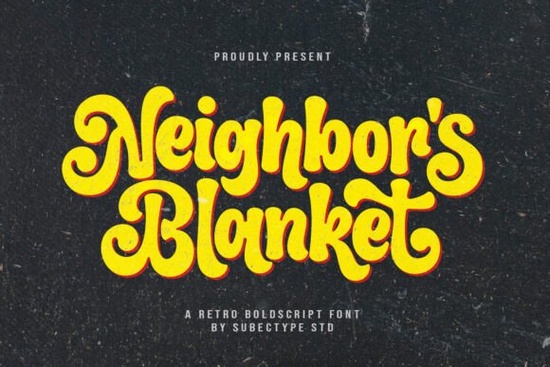
If you’ve been looking for a font that feels like a warm hug in type form, Neighbor’s Blanket Font might be exactly what your next project needs. It’s got that soft, rounded charm the kind that makes people lean in and smile when they see it on a greeting card, product label, or social media graphic. Whether you’re designing for print-on-demand mugs, crafting cozy branding for your small business, or just making something personal for friends and family, this font brings comfort without sacrificing clarity.
What stands out right away is how effortlessly Neighbor's Blanket blends retro nostalgia with modern simplicity. The curves are gentle, the spacing generous, and the overall vibe? Friendly. Not cutesy, not childish just genuinely inviting. That’s why it works so well across invitations, packaging, logos, and even apparel designs where readability matters as much as personality.
If you’re someone who values warmth in design maybe you run a handmade soap shop, create custom baby shower invites, or sell embroidered tote bags this font speaks your language. It doesn’t shout. It whispers “come sit down, I made cookies.” And sometimes, that’s exactly the tone your audience wants to hear.
Is it easy to pair with other fonts?
Yes and that’s part of its quiet strength. Because the letterforms are simple and open, they play nicely with sans-serifs for contrast (think pairing with something like Montserrat or Lato) or even handwritten scripts for layered texture. Try putting Neighbor’s Blanket as your headline font and letting a clean body font handle the details. You’ll keep the charm while ensuring everything stays readable.
Any tips for getting the most out of this font?
A few small tweaks can make a big difference:
- Use generous leading. Let those rounded letters breathe tight spacing can make them feel crowded.
- Stick to medium weights. Too thin loses the cozy vibe; too bold can feel heavy instead of comforting.
- Color matters. Cream, sage green, warm terracotta earthy tones enhance the nostalgic mood.
- Add subtle textures. A light paper grain or watercolor wash behind your text deepens the handmade feel.
One thing to note: while it’s legible at larger sizes, avoid shrinking it down for fine print. Like any display font, it’s meant to be seen, not scanned quickly in tiny footnotes.
Where could you use this beyond digital designs?
Think physical. Think tactile. This font translates beautifully to embroidery, vinyl decals, chalkboard signs, and laser-cut wood. There’s something about seeing those soft curves carved or stitched that doubles down on the handmade, neighborly charm. If you’re selling at craft fairs or local markets, materials matter and this font adapts gracefully.
You might also explore layering it with illustrations think teapots, quilting patterns, or vintage kitchen tools. The font doesn’t compete; it complements. That’s rare in display typefaces, where personality often overwhelms context.
Final thought before you download
Fonts like this aren’t just tools they’re tone-setters. Choosing Neighbor’s Blanket means you’re choosing to communicate care, familiarity, and ease. In a world full of loud, attention-grabbing type, sometimes the quiet ones leave the deepest impression.